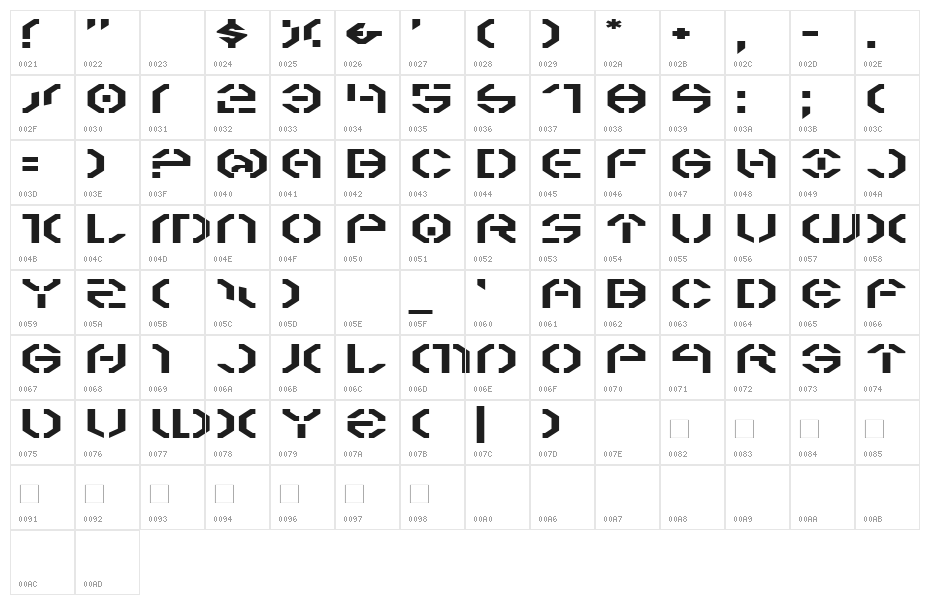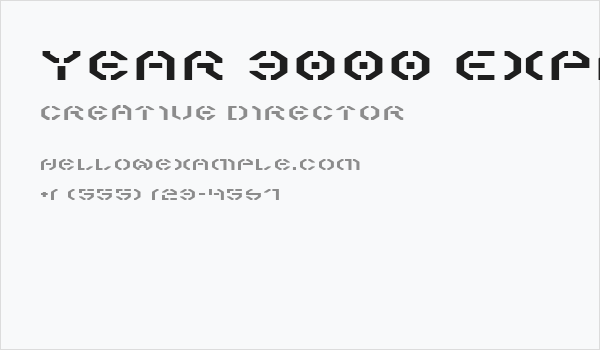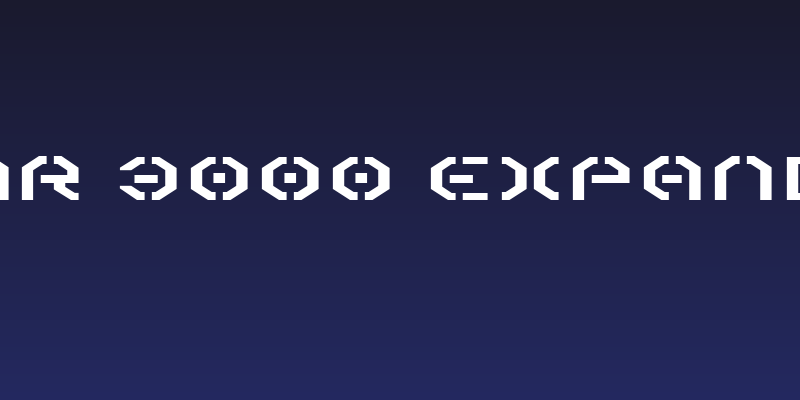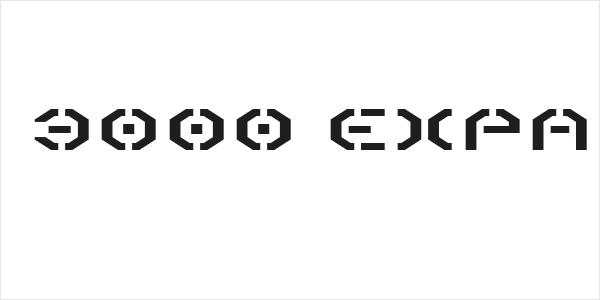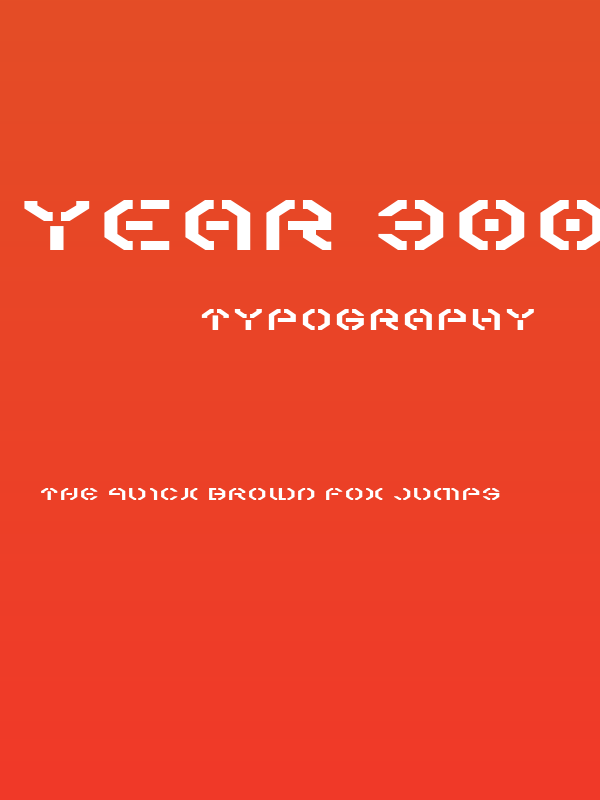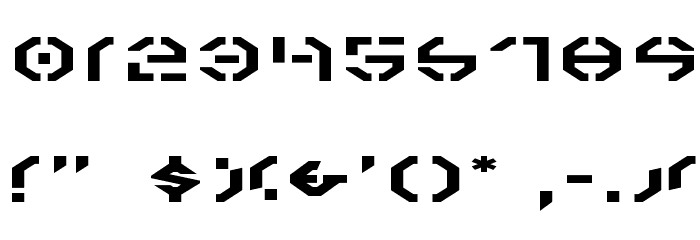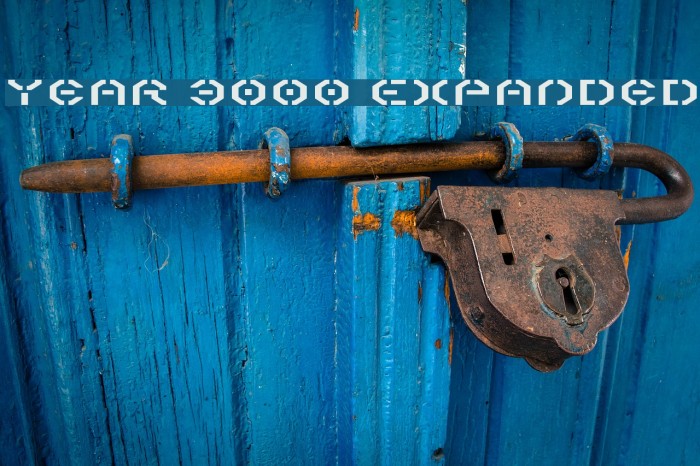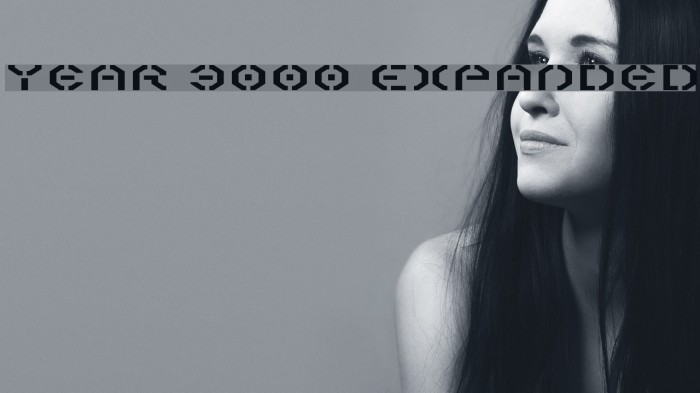
Year 3000 Expanded Font
Year 3000 Expanded Description
This futuristic font features a bold and geometric design, characterized by sharp angles and a stencil-like appearance. The characters are constructed with a series of straight lines and precise cuts, giving it a mechanical and industrial feel. The uppercase and lowercase letters maintain a consistent style, with the numbers and special characters following suit. The overall look is modern and tech-inspired, suitable for projects that require a forward-thinking and innovative aesthetic.
| Overall Style | Futuristic |
| Proposed Projects | Ideal for sci-fi themed projects, technology branding, video game interfaces, and futuristic posters. |